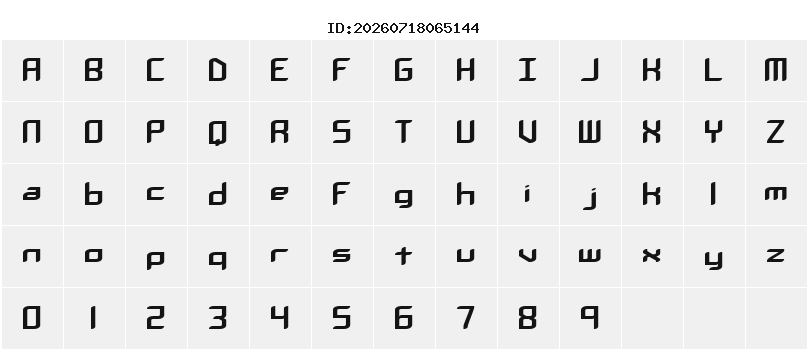
Chemical Reaction A BRK Preview
• Font Name: Chemical Reaction A BRK
• Full Font Name: Chemical Reaction A BRK
About Chemical Reaction A BRK.ttf
Chemical Reaction A BRK.ttf is a modern, elegant sans-serif font designed for ultimate readability and visual harmony. Perfect for branding, headlines, web design, and print materials.